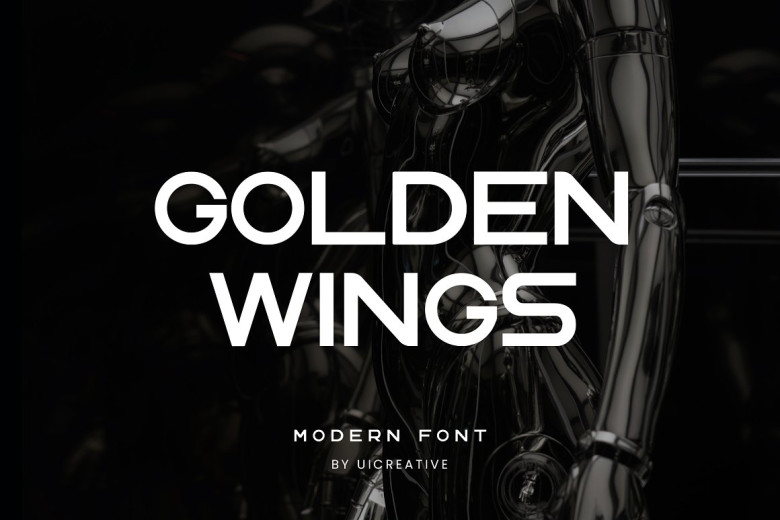
Golden Wings Font
Golden Wings is a modern sans serif font that looks like cool frost without the hassle of freezing to your fingers in order to feel it. particularly well suited for a wide range of projects, such as signature, stationery, logo, wedding typography quotes, magazine or book covers and websites snapping off to different parts of heaven.
Golden Wings Sans Serif Font